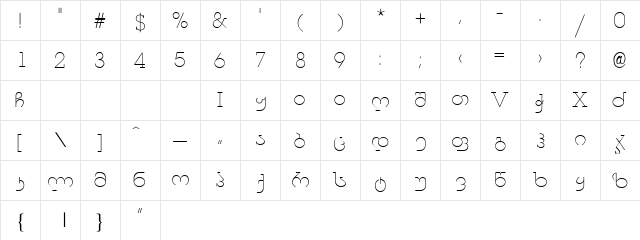
Lali Regular
Design Context for Lali Typeface
Lali takes a measured approach to typography — its balanced proportions and neutral character make it a reliable workhorse for both digital and print work.